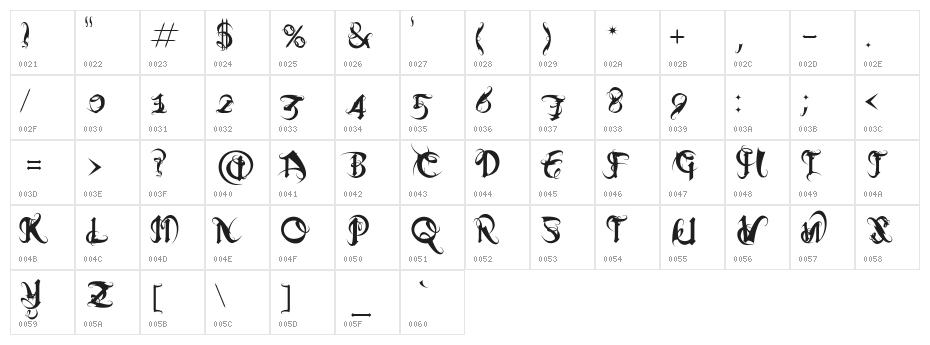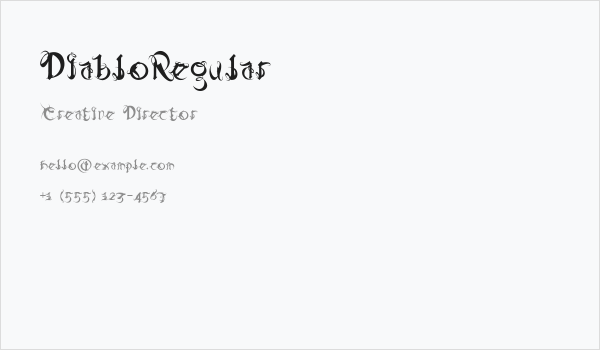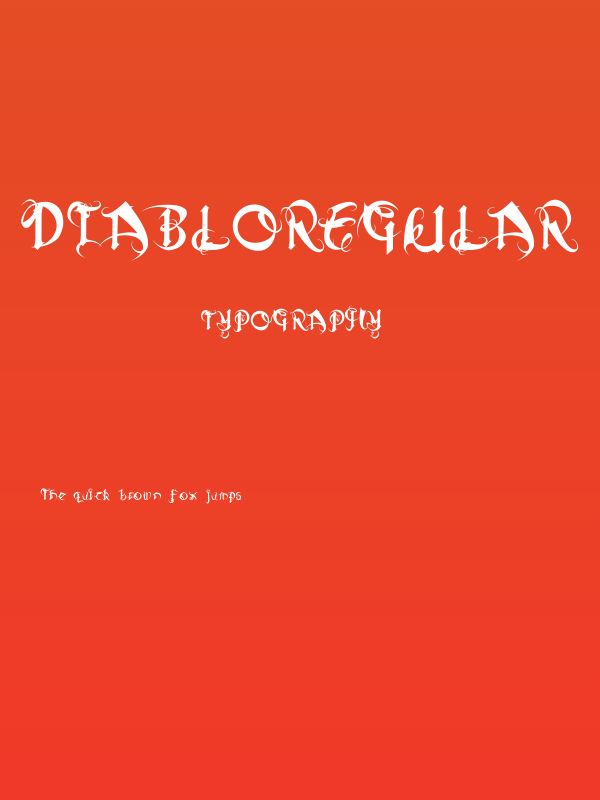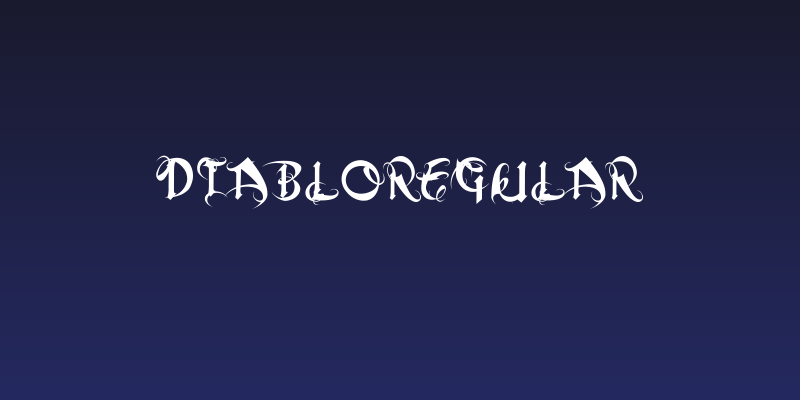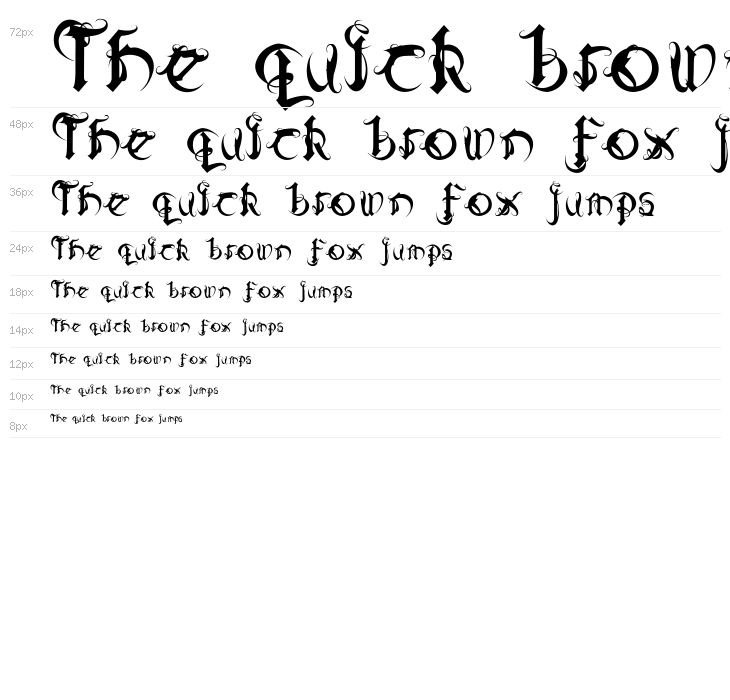
DiabloRegular Font
DiabloRegular Description
This font features an intricate and elaborate design, characterized by sharp, pointed serifs and decorative flourishes that extend from the main strokes. The letters exhibit a gothic influence, with a dramatic and bold appearance that commands attention. Each character is uniquely crafted with swirling elements that add a sense of movement and complexity. The numerals and special characters maintain this ornate style, ensuring consistency across the entire typeface. The overall aesthetic is dark and mysterious, making it ideal for projects that require a touch of elegance and drama.
| Proposed Projects | Ideal for fantasy-themed designs, book covers, posters, and branding that requires a dramatic and elegant touch. |